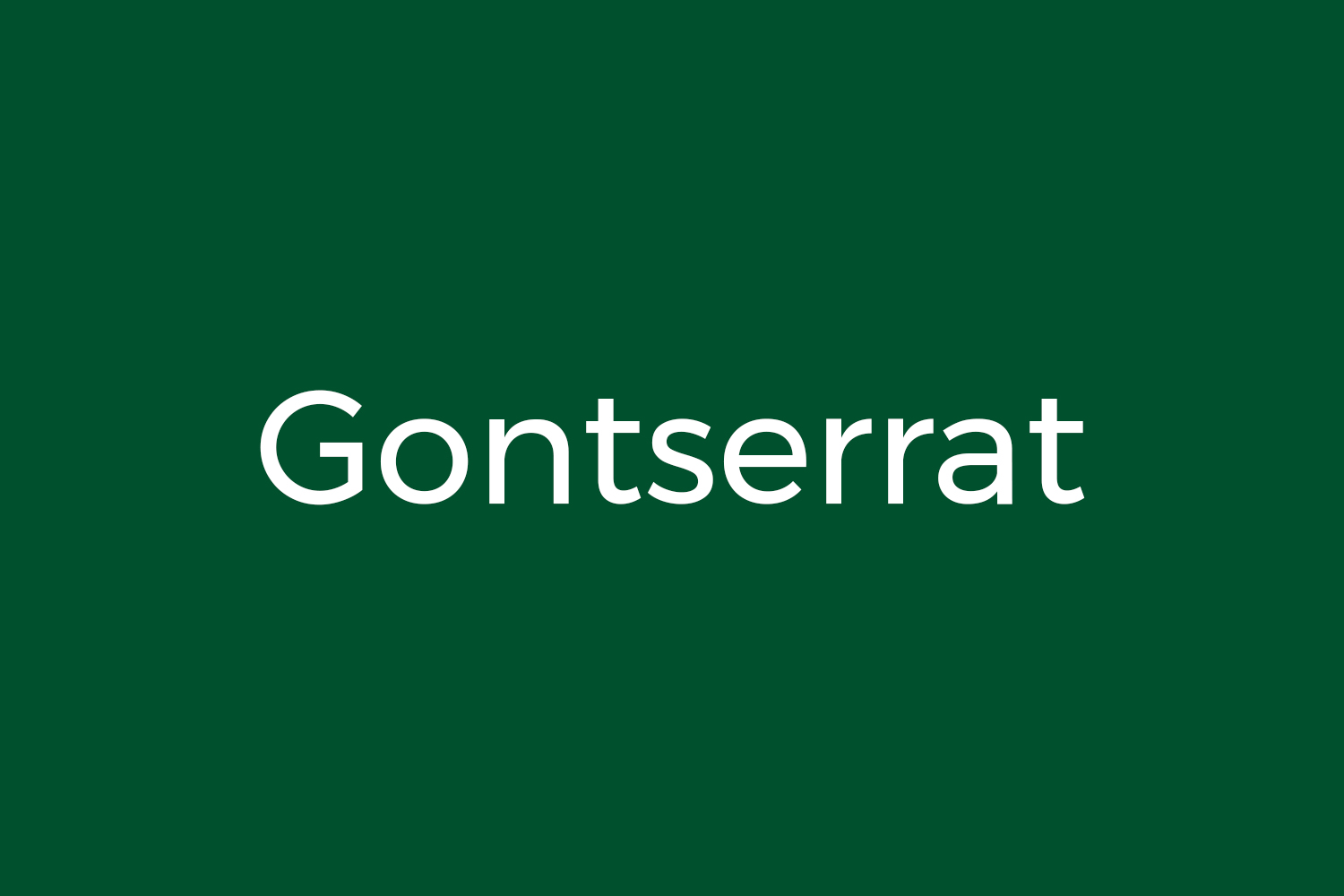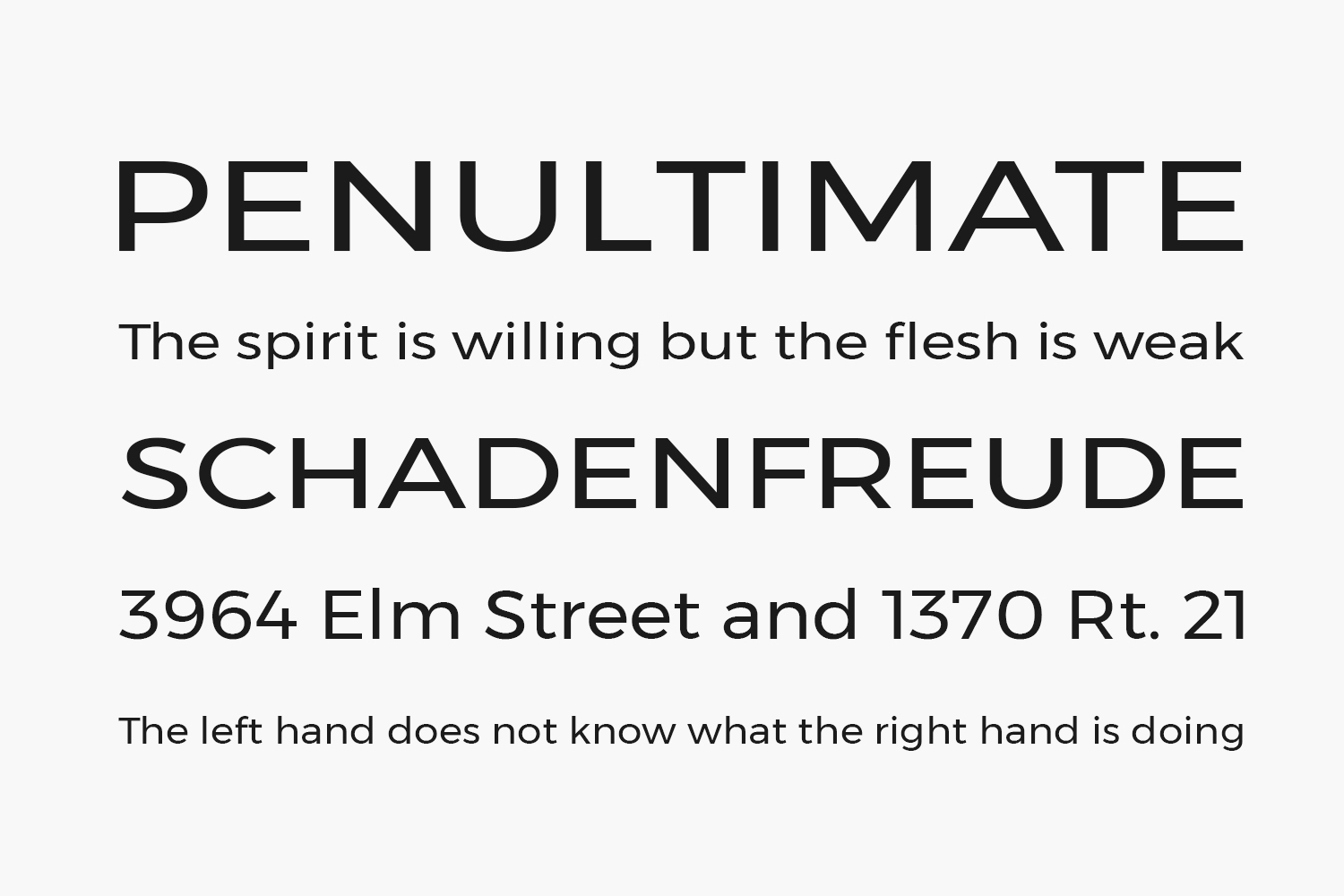
Gontserrat is a free humanist sans-serif typeface that blends the geometric structure of Montserrat with the readability and warmth of traditional grotesks. Designed to excel in both body text and digital UI applications, Gontserrat delivers clarity, balance, and a modern aesthetic without sacrificing personality. With its generous x-height, subtle curves, and open letterforms, this versatile font is ideal for everything from editorial design to branding. Gontserrat is available in multiple weights and supports extensive Latin character sets, making it a strong choice for multilingual typography. Perfect for web interfaces, user guides, mobile apps, and long-form reading experiences.
Why Choose Gontserrat?
- Readable & Warm: Humanist touches soften geometric rigidity, improving legibility in paragraph text.
- Modern Aesthetic: Retains a contemporary style inspired by Montserrat while offering a unique twist for text-heavy designs.
- UI-Ready: Excellent for websites, apps, and dashboards thanks to its neutral yet friendly tone.
- Multi-weight Family: Includes regular, bold, and italic styles to maintain consistency across layouts.
Where to Use Gontserrat?
- UI & Web Design: Clear and optimized for screen display, ideal for menus, labels, and content blocks.
- Branding Systems: A strong foundation for text in brand guidelines, brochures, and product packaging.
- Editorial Layouts: Comfortable for long-form reading in magazines, blogs, and reports.
- Mobile Applications: Consistent performance in small screen environments with excellent scalability.
- Multilingual Content: Supports Latin-based languages for international projects.
Design Tips with Gontserrat
Pair Gontserrat with a serif like Merriweather for editorial sophistication or use it alongside icons and flat UI elements in dashboards. Bold weights work great for headings, while Regular or Light are perfect for continuous reading. When designing dark mode interfaces, its open shapes ensure optimal legibility.
- Weights: 18 (Thin → Black), italics included.
- Glyphs: Extended Latin, punctuation, numerals.
Designed by Ospiro Enterprises